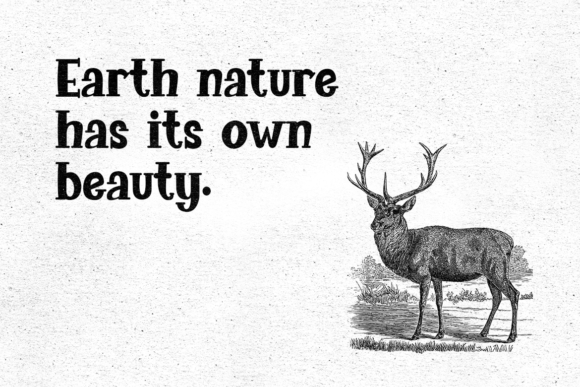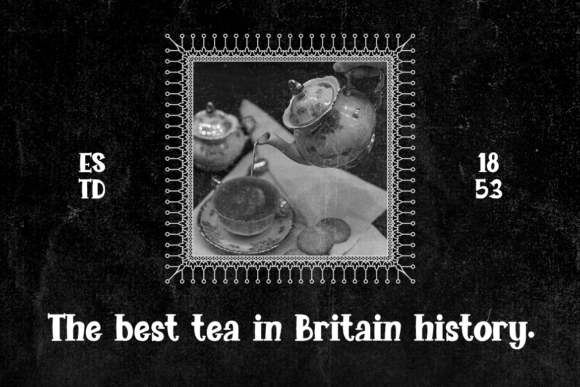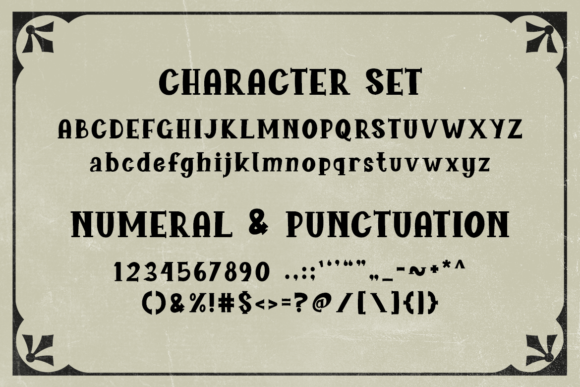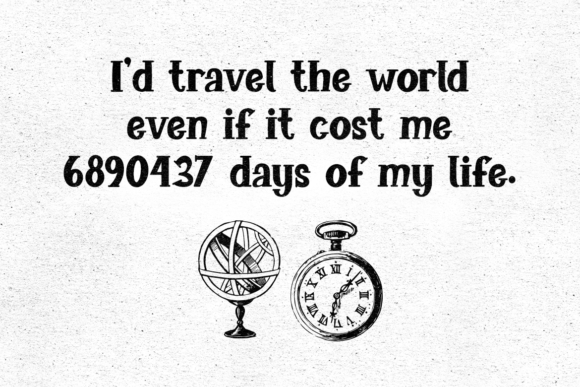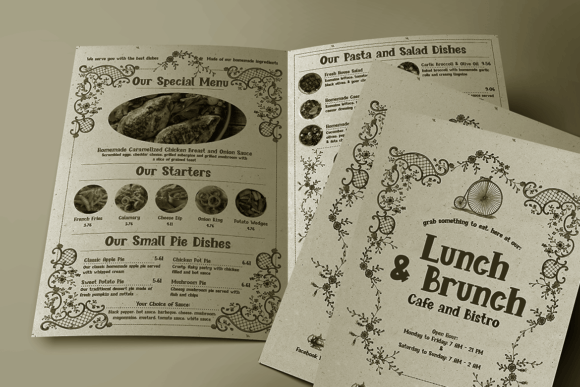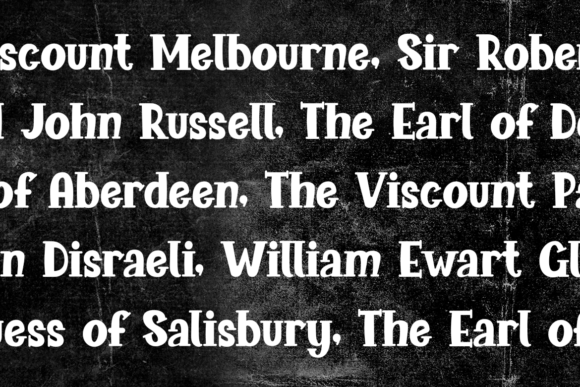
Introduction to Gudtaims Font
Imagine you’re flipping through a vintage comic book, the pages yellowed with age, the illustrations bursting with color. You’re transported to a bygone era, where imagination knows no bounds. It’s moments like these that inspire designers to create something truly special. For those who love retro charm, we have the perfect font: Gudtaims Font.
As a valuable design resource, Gudtaims Font brings a touch of nostalgia to any project. Its classic comic style is perfect for creating a high-quality, eye-catching visual identity. Whether you’re working on a vintage-themed book cover, a retro-inspired poster, or a YouTube thumbnail, Gudtaims Font is sure to add a unique touch. And the best part? It’s free to download, making it an accessible design tool for creatives of all levels.
With its transparent background and versatile design, Gudtaims Font is an essential addition to any designer’s toolkit. Whether you’re working on a personal project or a commercial design, this font is sure to bring a touch of classic charm to your creative project.
Key Features of Gudtaims Font
- High-quality design for various creative projects, including digital art and graphic design
- Unique, hand-drawn style that adds a touch of personality to any design project
Honest Review: Gudtaims Font
I recently stumbled upon the Gudtaims Font, and I must say, it’s a great addition to my design resource library. One of the standout features of this font is its transparent background, which makes it perfect for creative projects that require a clean and minimalist aesthetic.
✨ High quality is another aspect that impressed me about the Gudtaims Font. The font’s crisp and clear lines, along with its well-defined characters, make it a great choice for both digital and print designs.
The Gudtaims Font also supports a wide range of languages, making it a versatile design resource for projects that require multilingual support.
- High quality with crisp and clear lines
- Supports a wide range of languages
- ⚠️ Limited customization options
- ⚠️ May not be suitable for designs that require bold or dramatic typography
Overall, the Gudtaims Font is a solid choice for designers looking for a reliable and versatile design resource. While it may have some limitations, its high quality and free download make it a great option for creative projects.
Gudtaims Font is suitable for a wide range of creative projects, including graphic design, web design, and digital art. It’s also great for creating designs with a transparent background, making it perfect for social media graphics, presentations, and more.